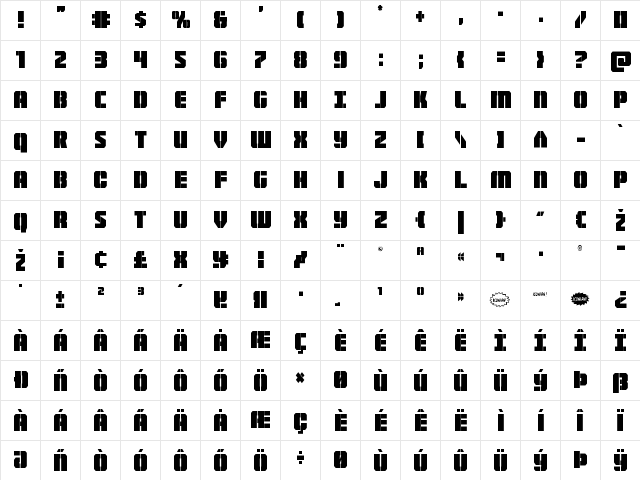
Warp Thruster Condensed Condensed
Design Context for Warp Thruster Condensed Typeface
Warp Thruster Condensed is a composed and adaptable typeface that performs quietly and consistently across a wide range of design contexts. Its narrow stance lets it pack a punch even in space-constrained designs.
Pro Tip: Use Warp Thruster Condensed in both headline and body roles to test its range before committing to a single application.